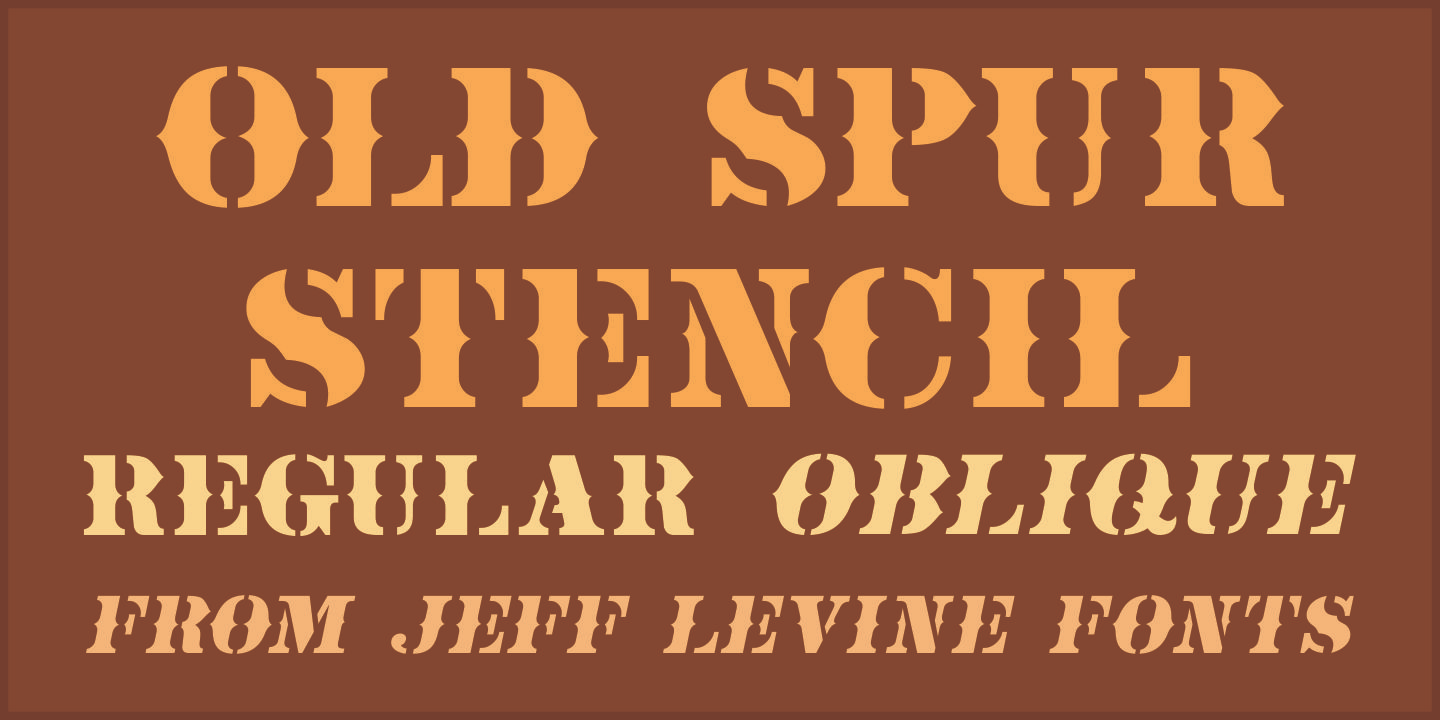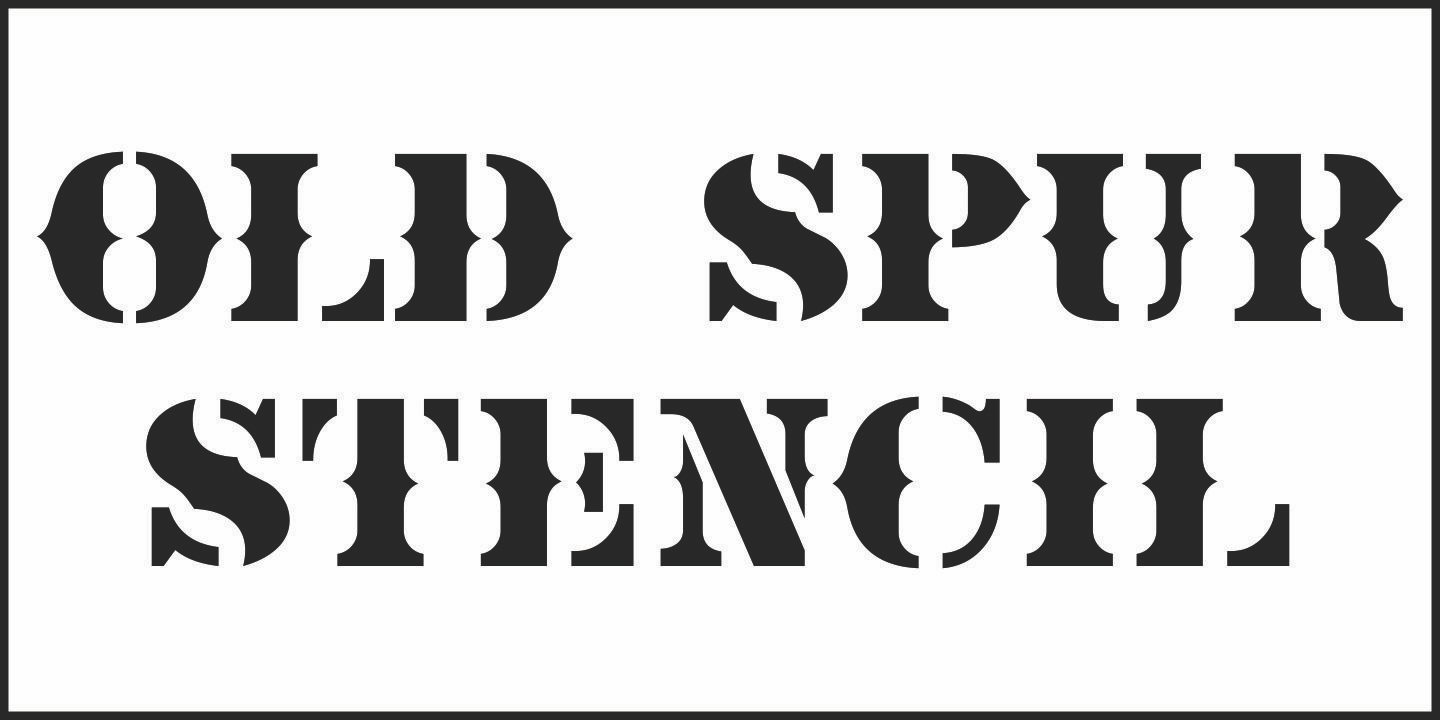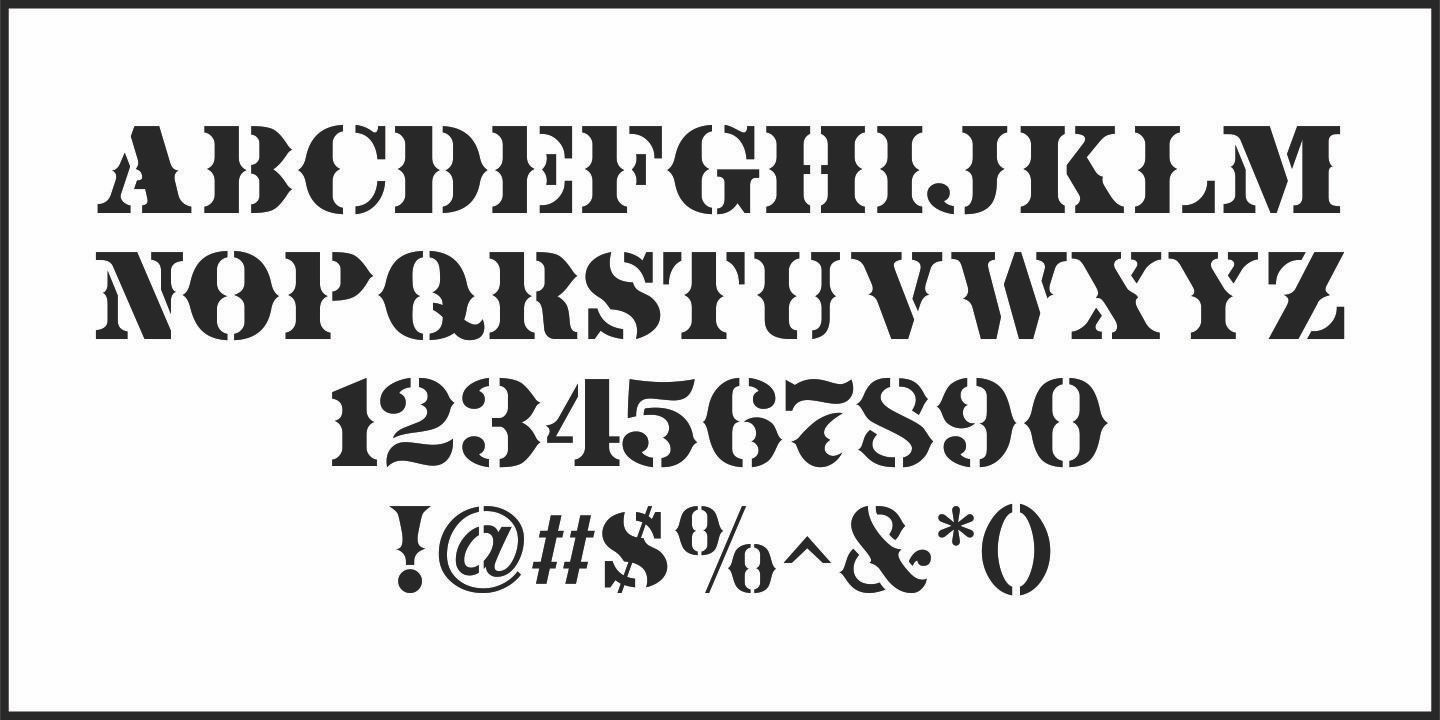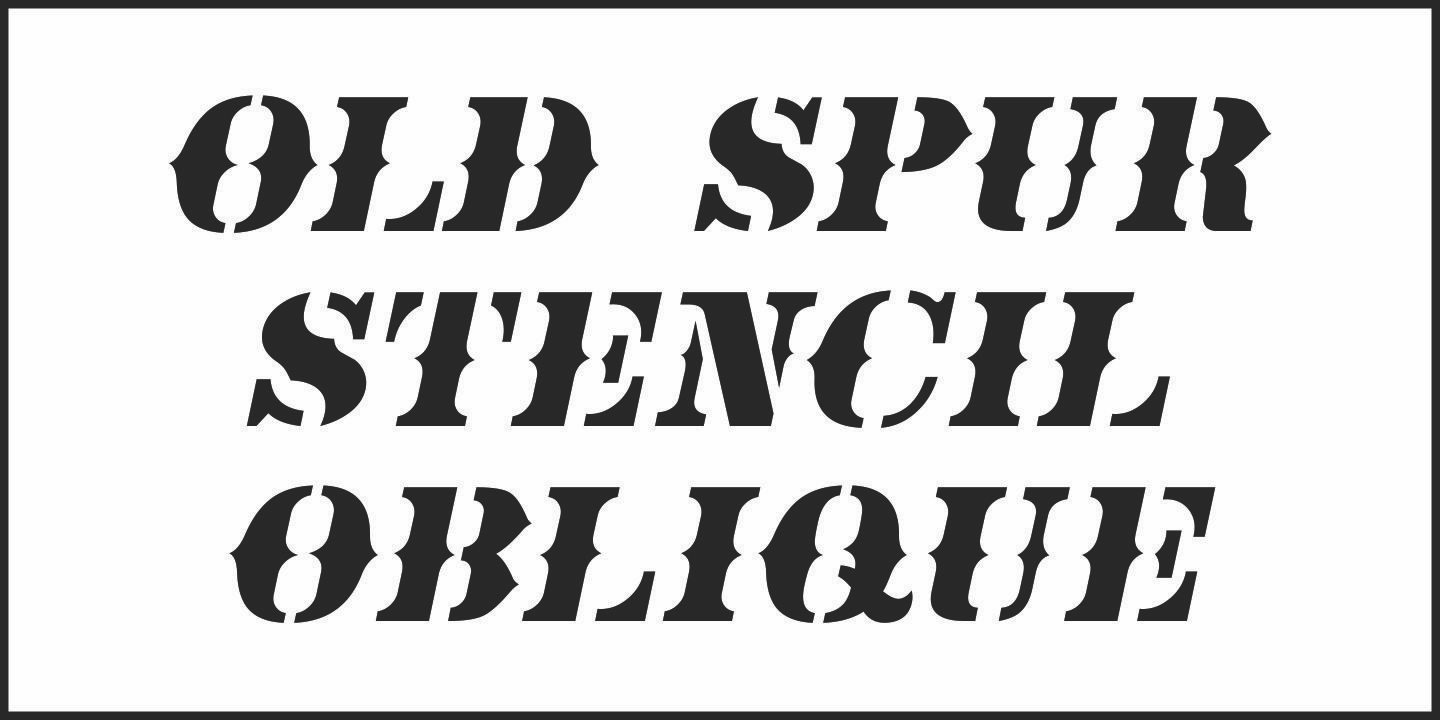
Old Spur Stencil
A partial set of antique brass stencils inspired Old Spur Stencil JNL, which is available in both regular and oblique versions.
The lettering is based on a traditional Roman stencil design with Western-style spurs added to the approximate centers of each character.
Old Spur Stencil JNL Regular by Jeff Levine Fonts